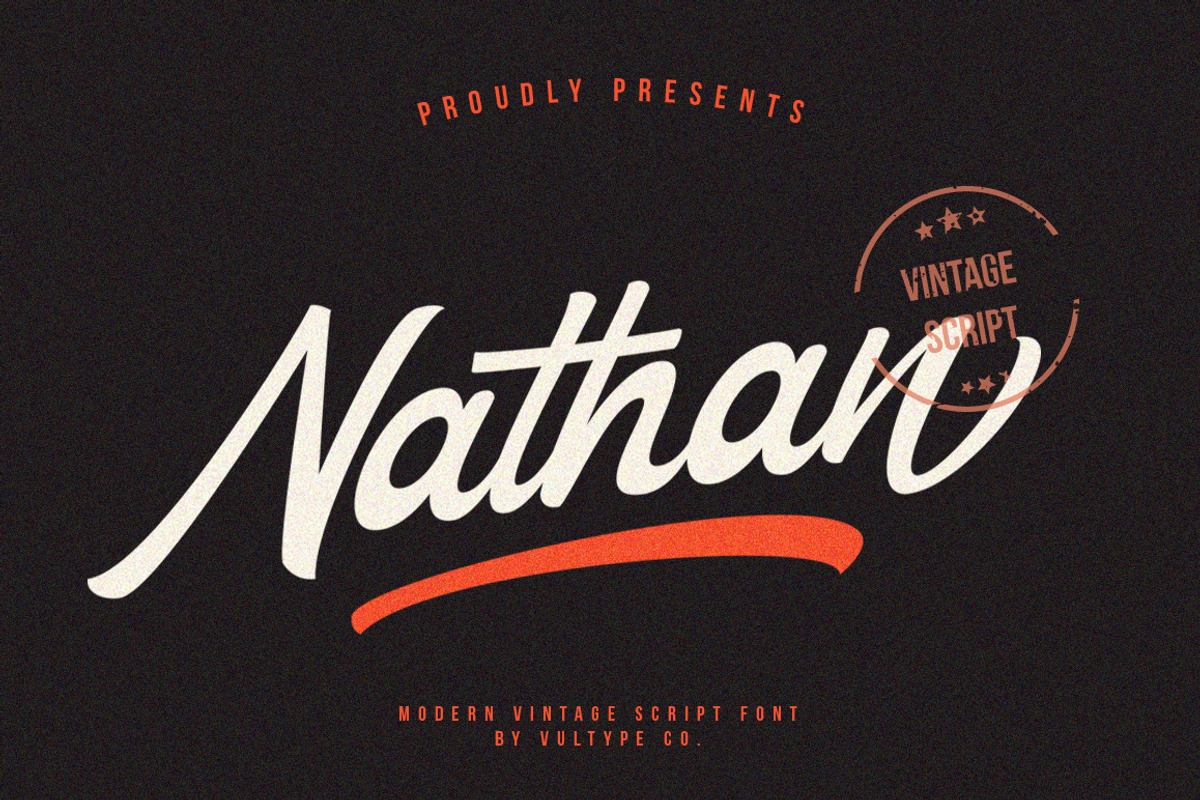
The Nathan - Vintage Script Font Free Download is a beautiful, flowing script typeface inspired by vintage calligraphy. Perfect for retro branding, logos, invitations, social media graphics, and creative projects, this font brings a classic, elegant touch to your designs.
With its smooth curves and stylish, retro flair, Nathan evokes nostalgia while offering a modern twist on traditional script fonts. It includes uppercase and lowercase letters, ligatures, punctuation, and multilingual support, making it highly adaptable for various design needs.